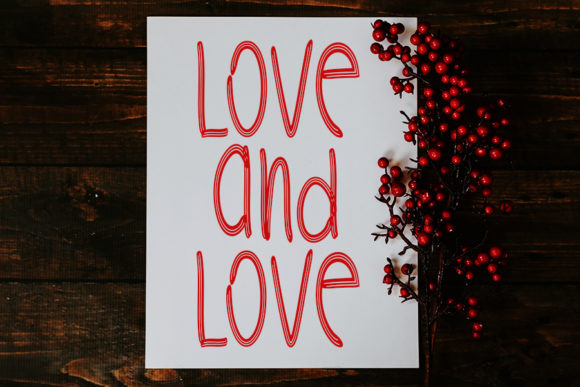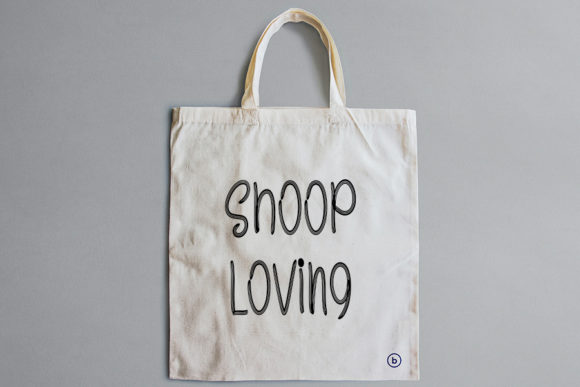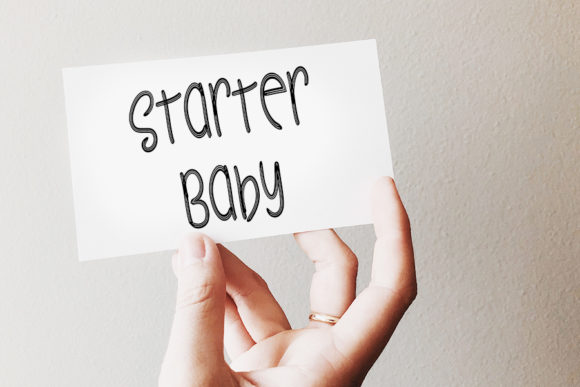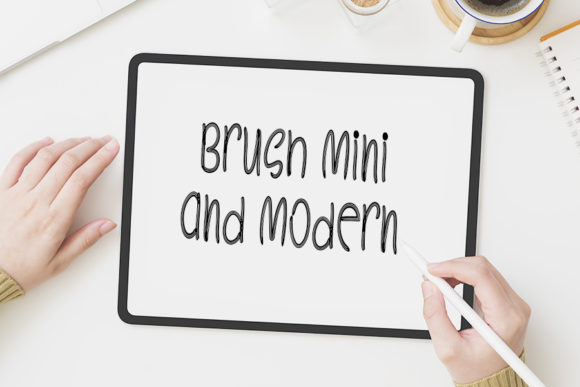
Introduction to Christmas Happy Love Font
Christmas Happy Love is a modern script font.
`Every letter has a unique and beautiful touch, which will make your design come alive .
Key Features of Christmas Happy Love Font